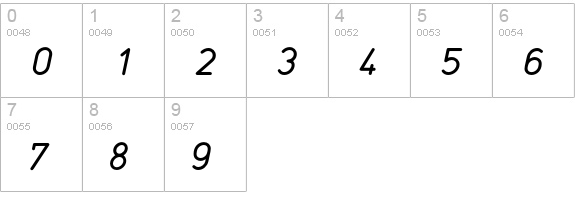
Din16-Italic is a distinctive, italic variant in the Din16 typeface family \xE2\x80\x94 well suited to design and typography projects.
Din16-Italic font is a sleek and modern typeface that exudes elegance and sophistication. Its italicized style adds a touch of flair to any design project, making it perfect for headlines, titles, and branding materials. With its clean lines and sharp edges, Din16-Italic font commands attention and conveys a sense of professionalism. Best of all, Din16-Italic font is available for free download at FontsMarket.com. This means you can easily access this stylish font for all your creative endeavors without breaking the bank. Don't miss out on the opportunity to enhance your designs with the bold and dynamic aesthetic of Din16-Italic font. Download it today and elevate your typography game to new heights!